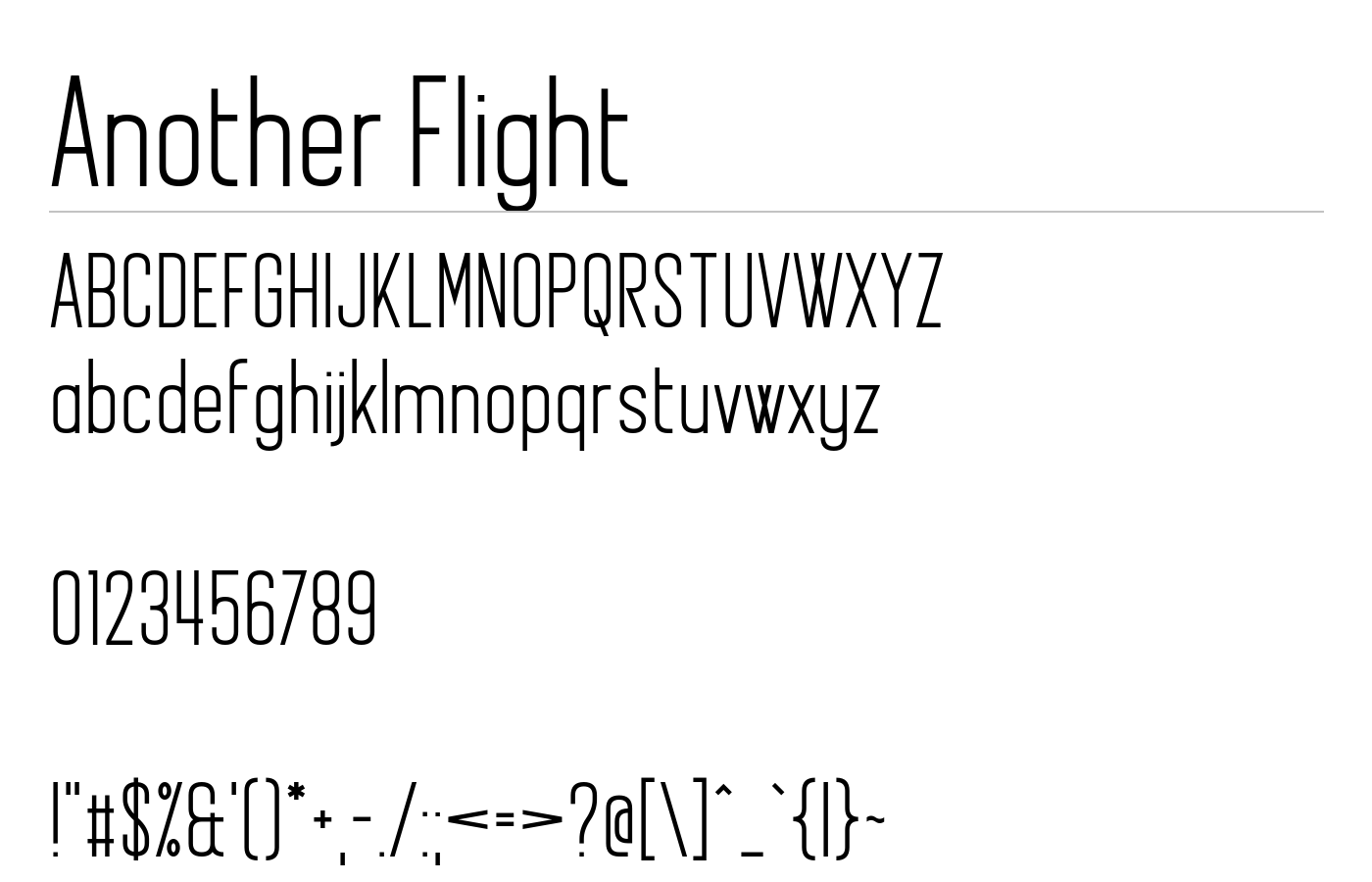
Another Flight is a tall, narrow sans serif font with a modern and minimalist feel. Its thin strokes and high contrast deliver an elegant yet contemporary look, making it ideal for stylish headlines, fashion branding, and editorial design where a sleek, refined appearance is desired.
Another Flight Font
About Another Flight Font
| Font family | Another Flight Font |
| Designer | Allison JJ |